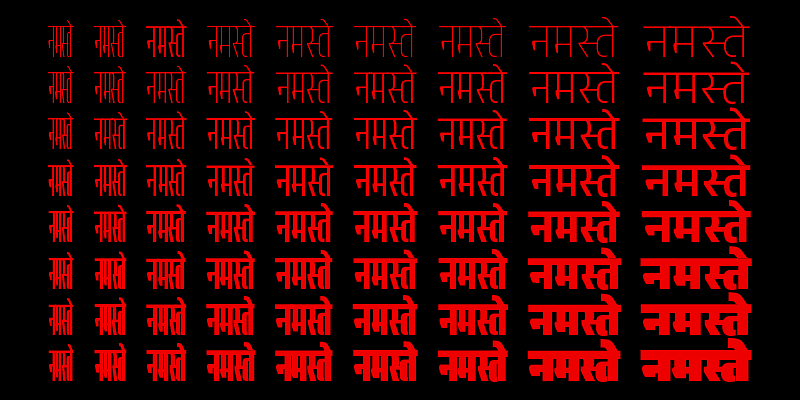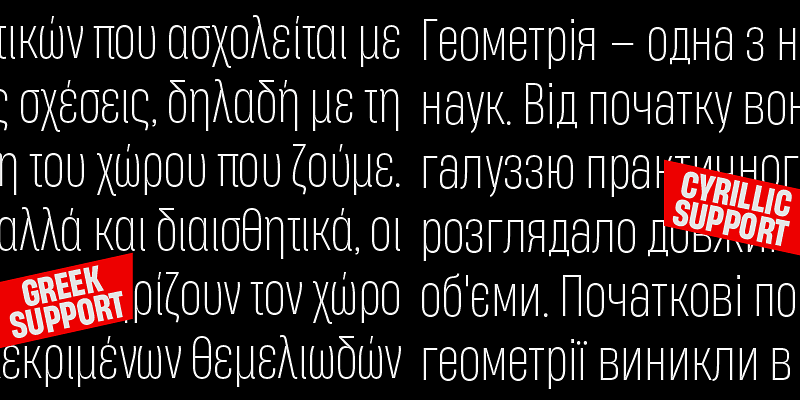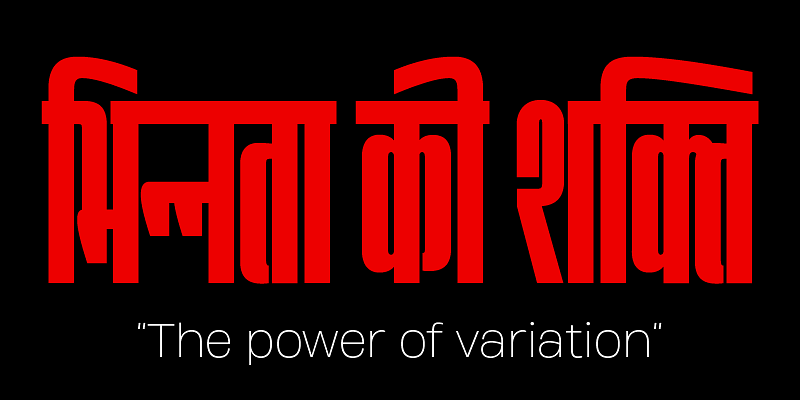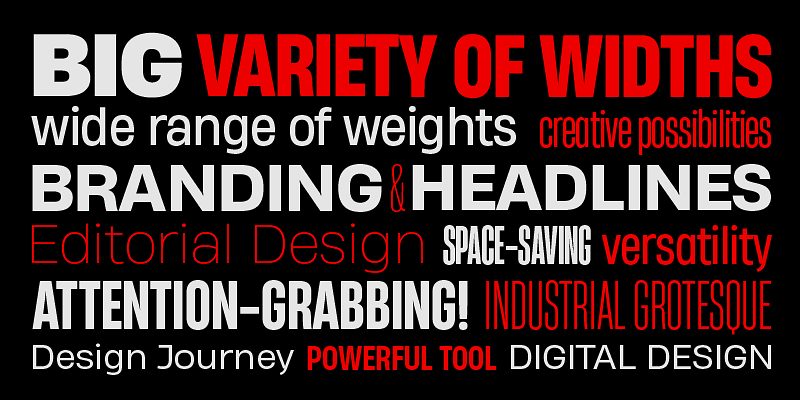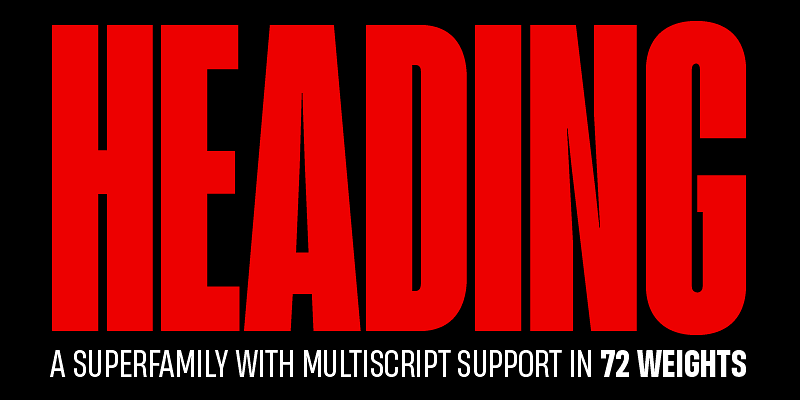
Heading is a grotesque sans superfamily spanning an extreme width range from ultra-narrow, industrial-flavoured tall weights to wider, more traditional rounded grotesque shapes. This versatility makes it equally at home in headlines, branding, infographics, wayfinding, logo design and timetables, while its medium widths and matching italics extend naturally into printed and digital body text. It covers over 200 languages across Latin, Greek and Cyrillic, and includes a Devanagari glyph set that translates cindustrial grotesque aesthetics to indic scripts.